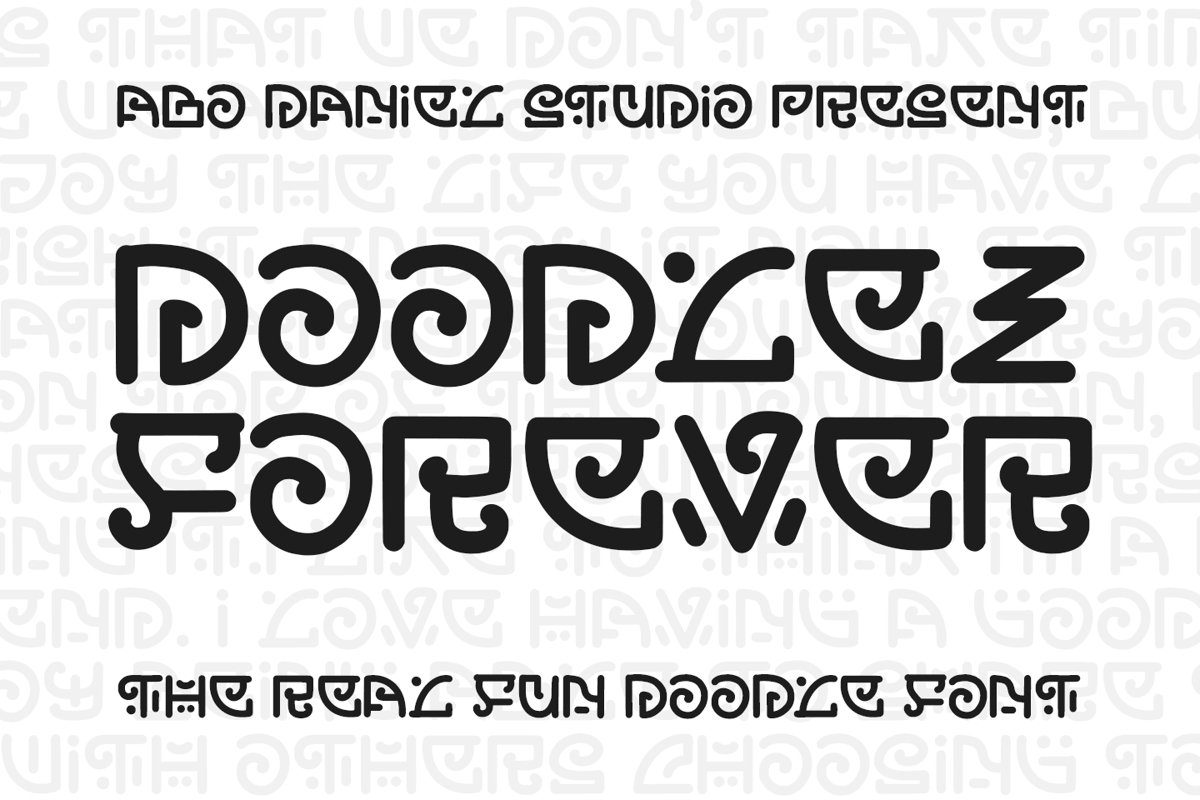
Doodlez Forever
Proudly Present
DOODLEZ FOREVER
- The Real Doodles Font-
The font that made special for doodle lovers.
This font is very unique and user friendly.
It's great for branding, packaging, T-shirt design, pillow design, quotes and many more.
Doodlez Forever is very worth to be picked into your collection.